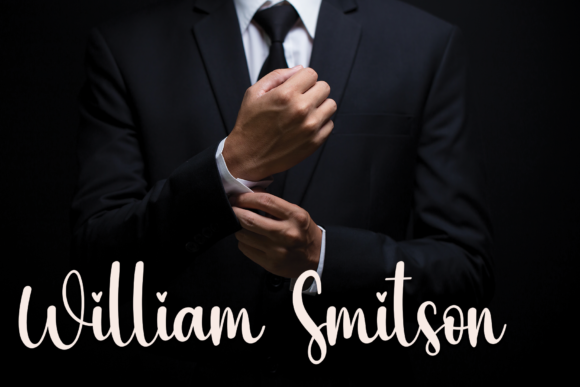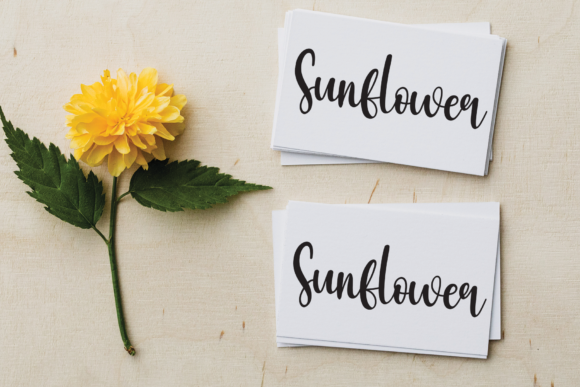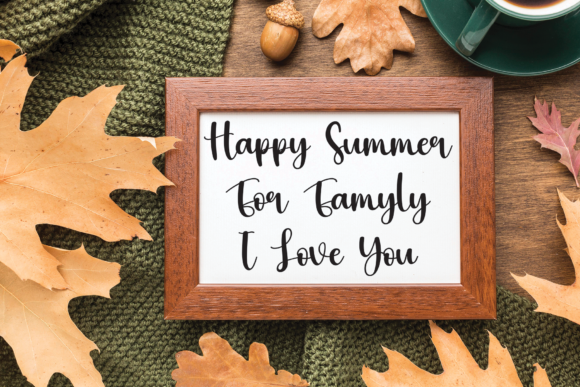
About Dashing Font
“Dashing” is a beautiful font that is perfect for a wide range of applications. Its elegant letters can add a touch of sophistication to wall displays, making them more appealing and eye-catching. For wedding invitations, “Dashing” can add a romantic and personal touch, making your special day even more memorable.
In the realm of social media, “Dashing” can be used in post logos, helping your content stand out and catch the attention of viewers. It’s also perfect for advertisements, where its distinctive style can help your message resonate with your audience.
When it comes to product packaging and designs, “Dashing” can add a unique and stylish touch, making your products more appealing to customers. It can also be used in labels, where its clear and readable form can convey important information effectively.
In photography, “Dashing” can be used as watermarks, protecting your work while maintaining its aesthetic appeal. It can also be used in invitations and stationery, adding a personal and handwritten touch that is sure to impress.
In conclusion, “Dashing” is a versatile design tool that can enhance a wide range of projects. Whether you’re designing for print or digital, for business or personal use, “Dashing” can help you create designs that are not only beautiful but also effective and impactful. So, embrace “Dashing” and let it take your designs to new heights.